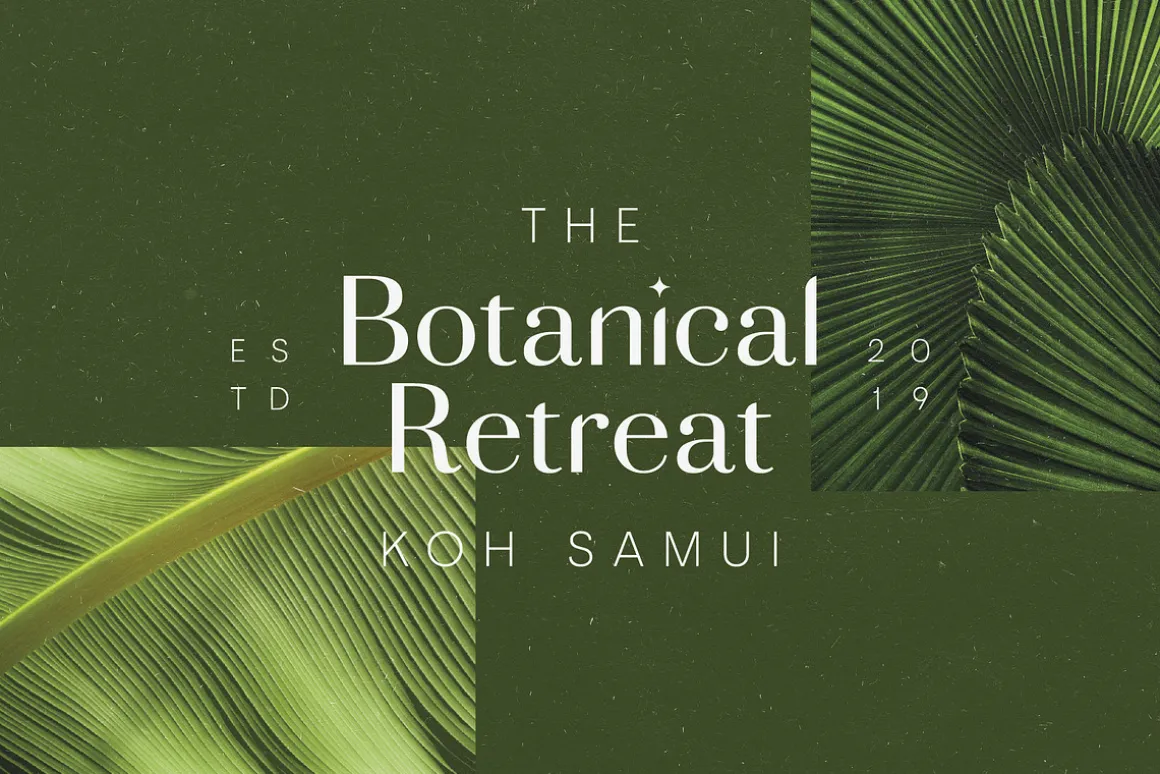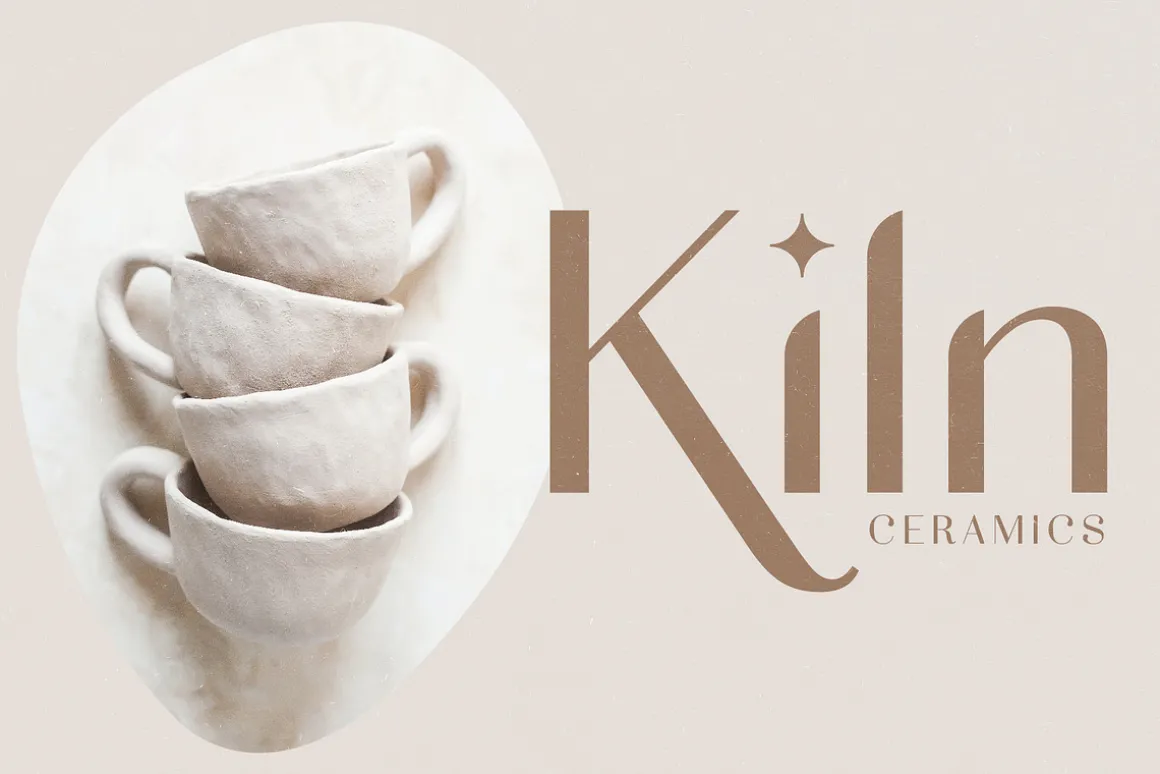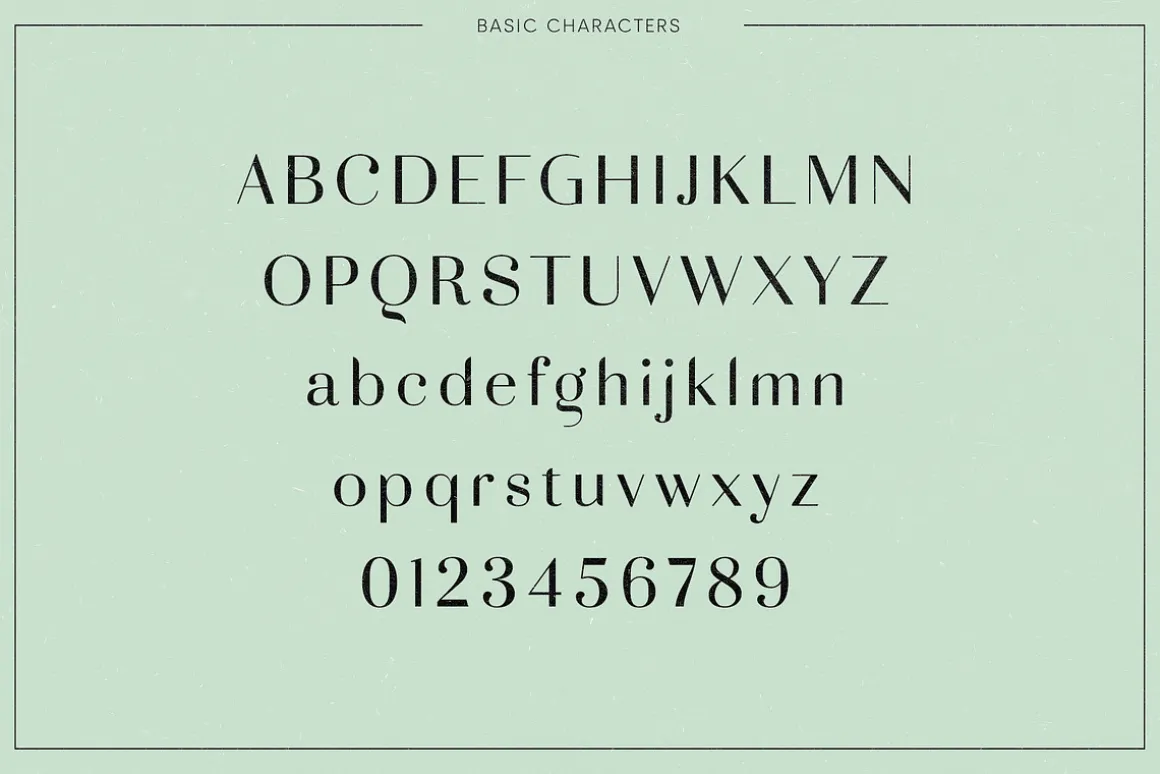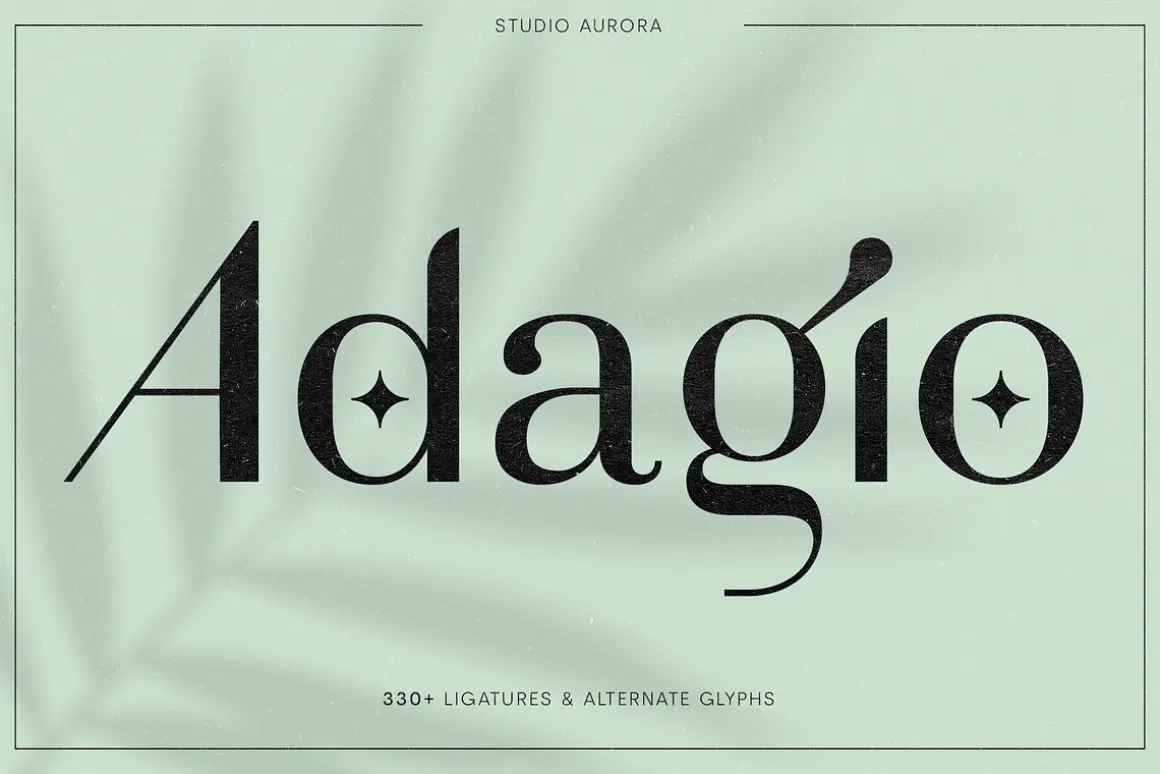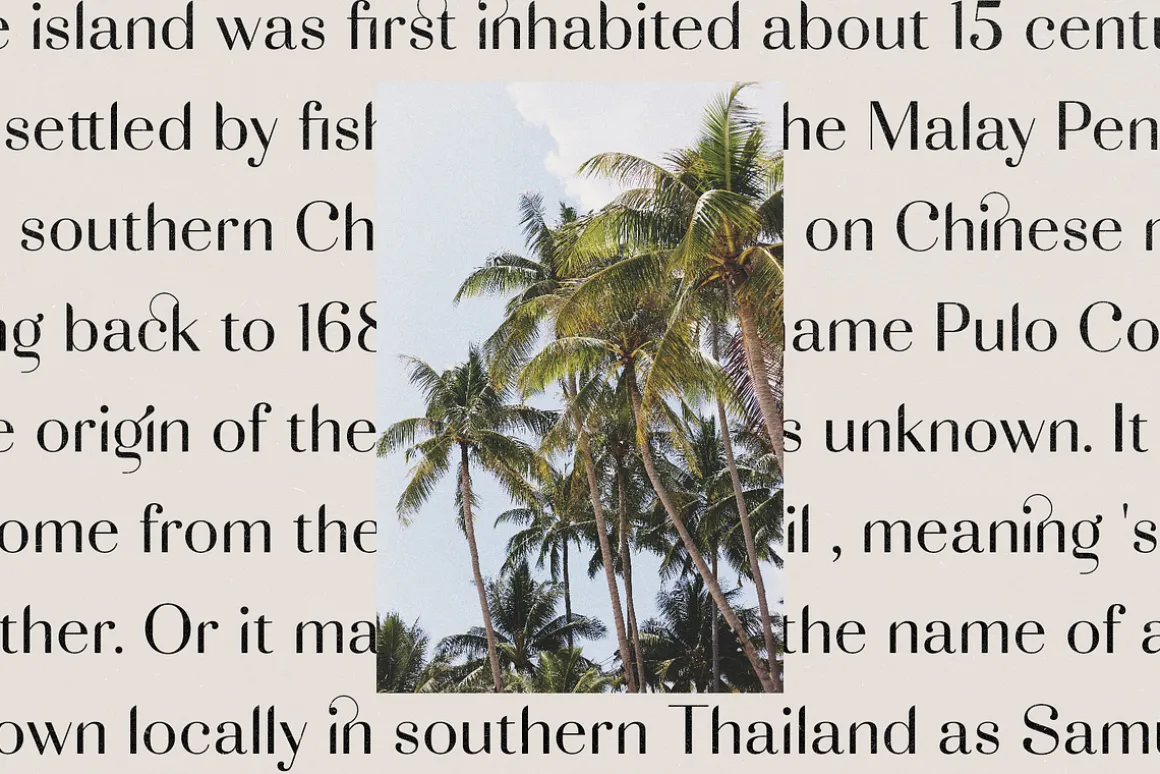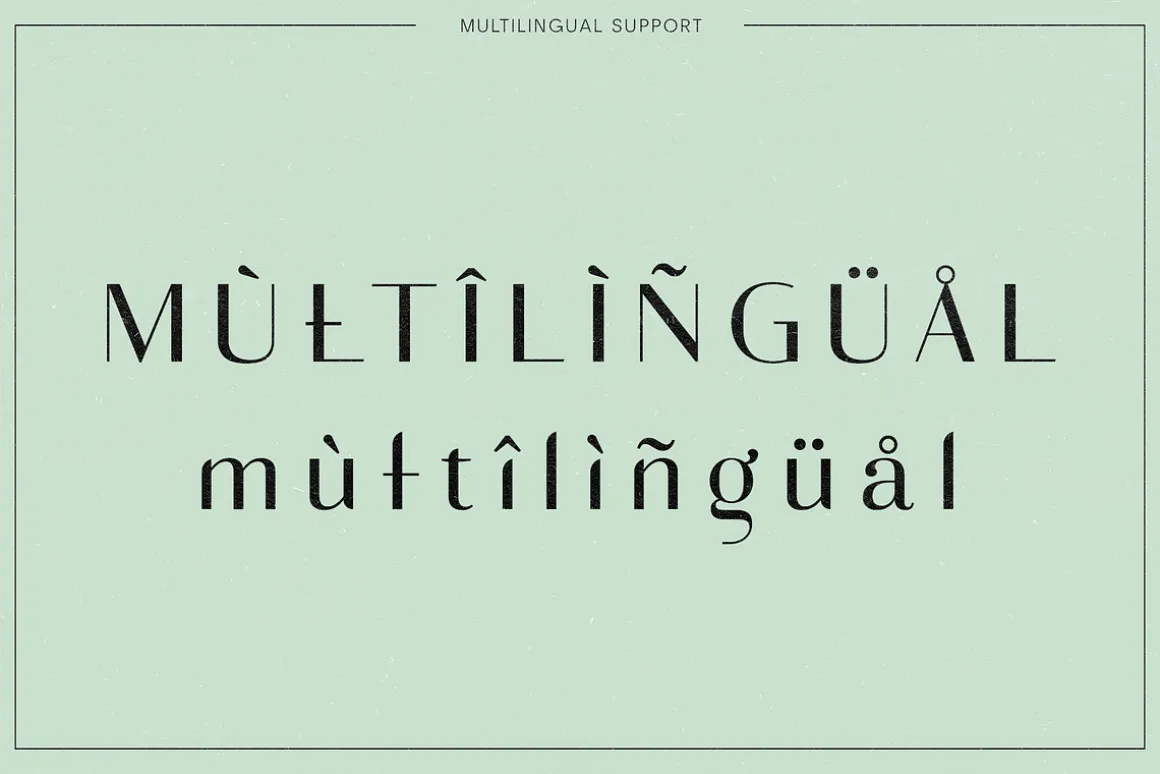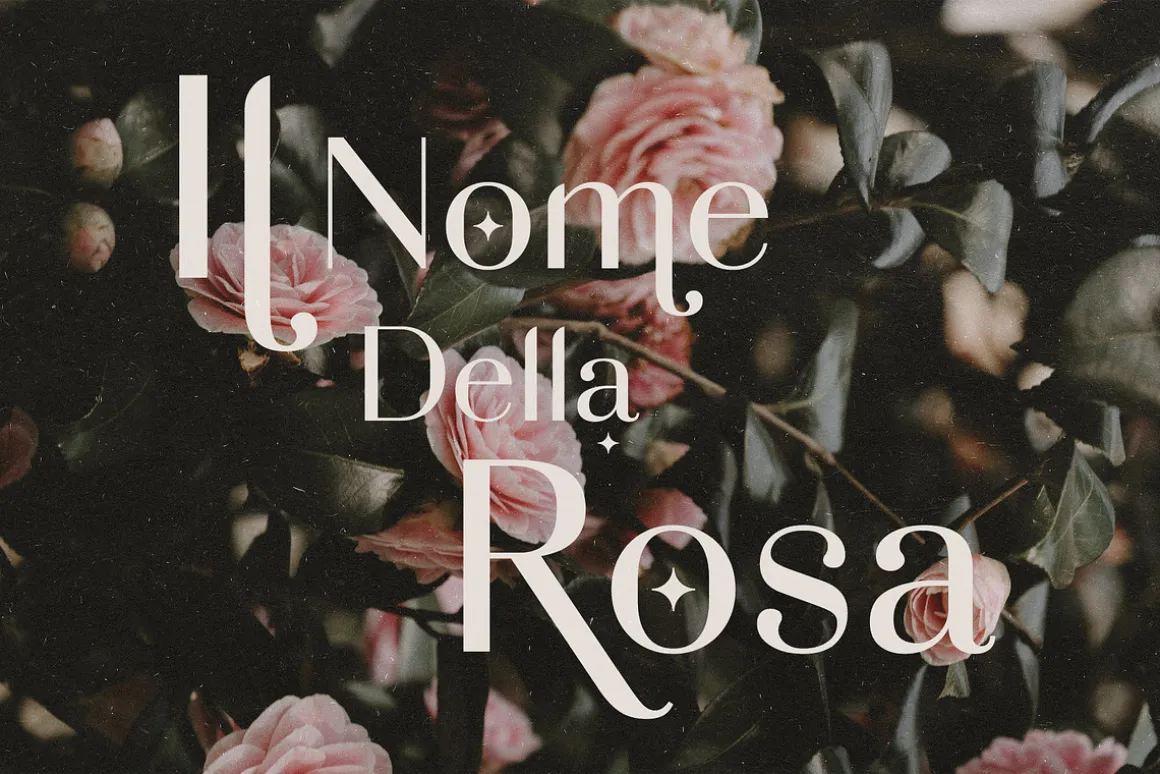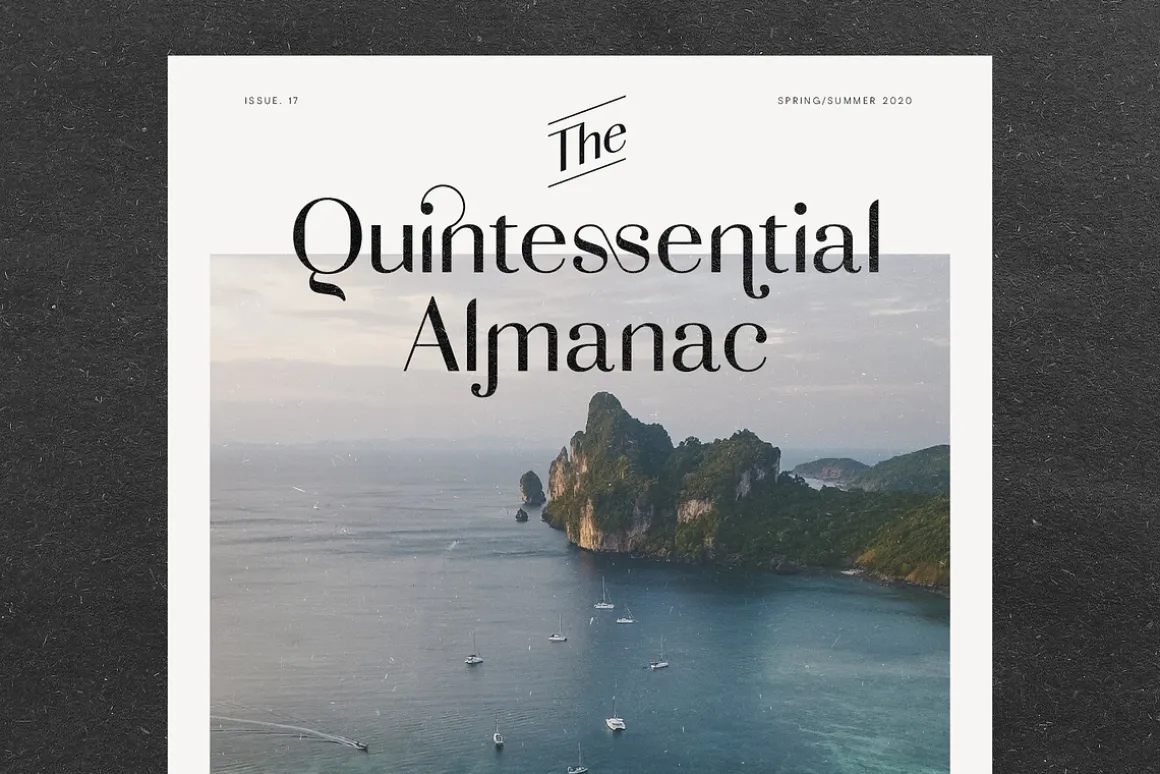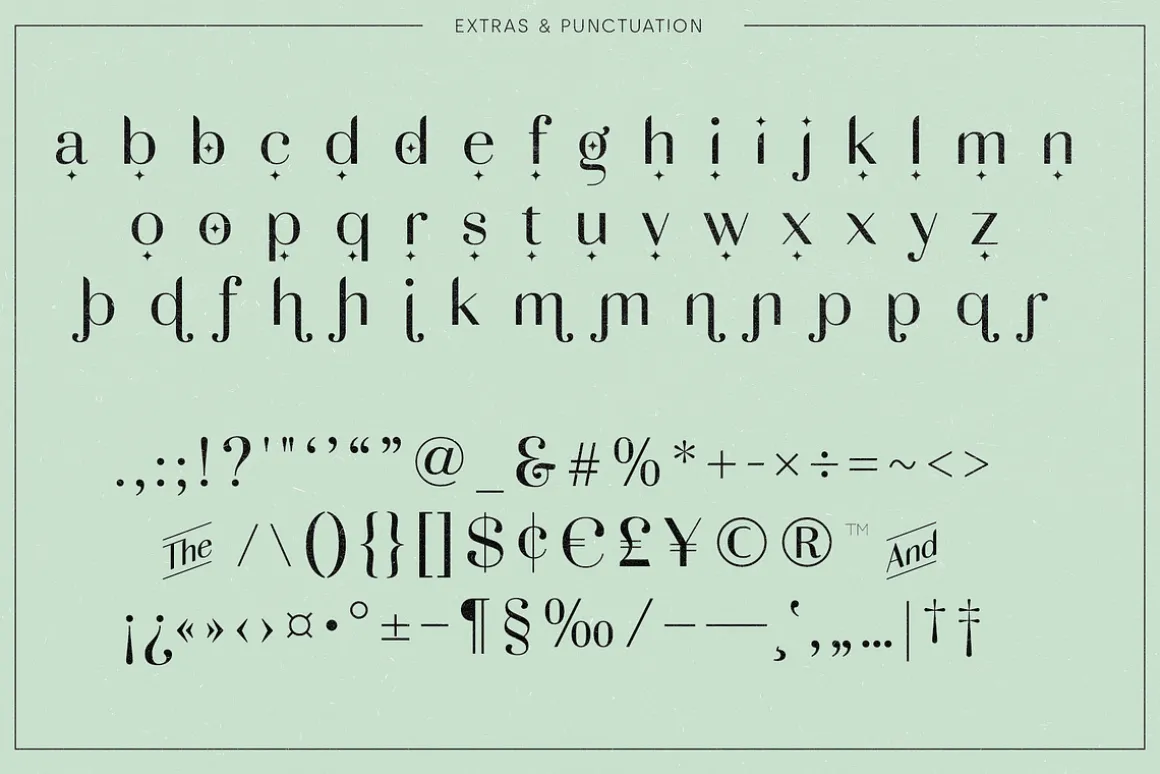
Introducing our new typeface, Adagio.
It’s a feminine, creative, and unique display sans-serif font that is packed full of alternates and ligatures to create great variety in your designs.
It can be used for body copy or as a display font that we recommend using in the following types of work; magazines (titles and layouts), logos and branding, invitations, quotes, blog headers, posters, and advertising.
- Adagio font featuring over 330 glyphs
- Loads of alternate and ligature glyphs